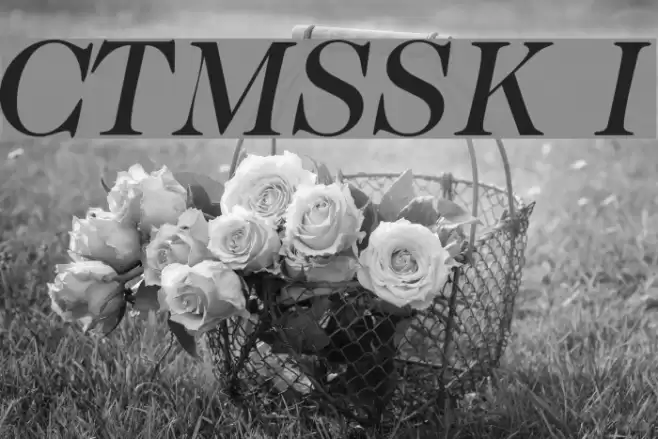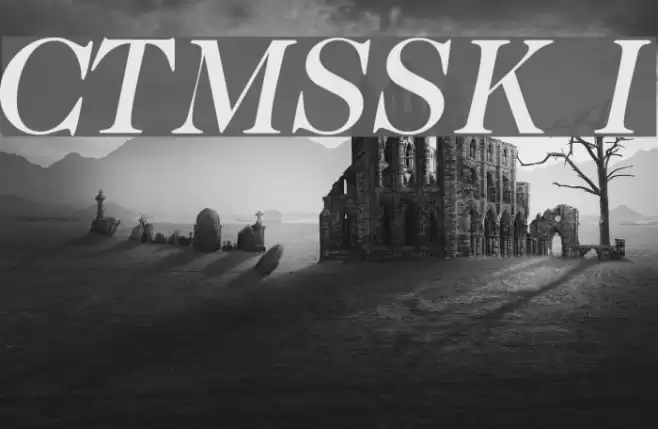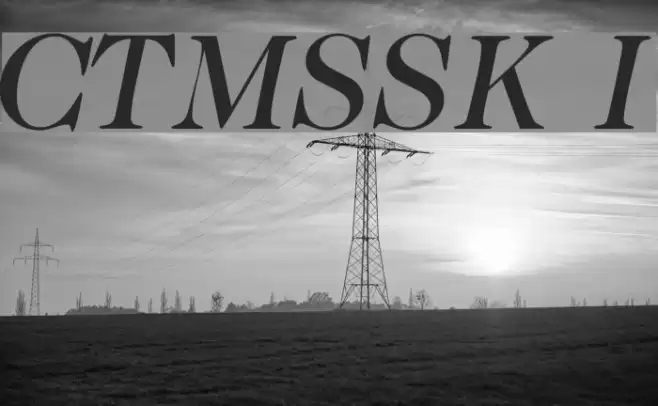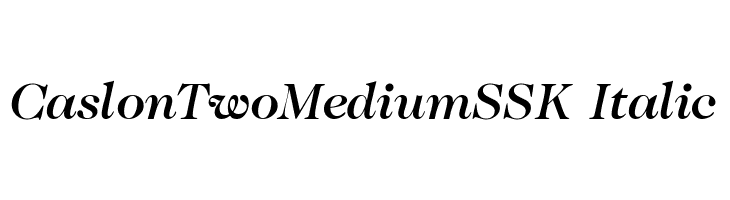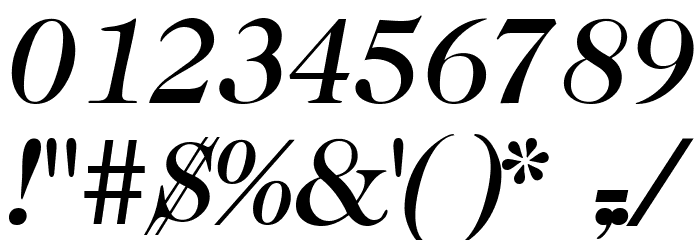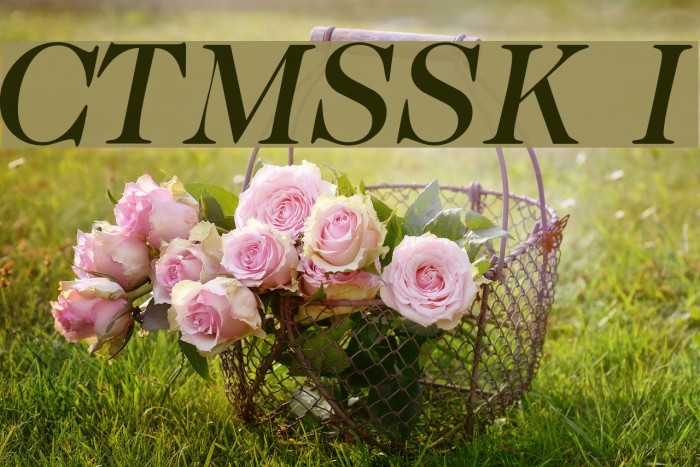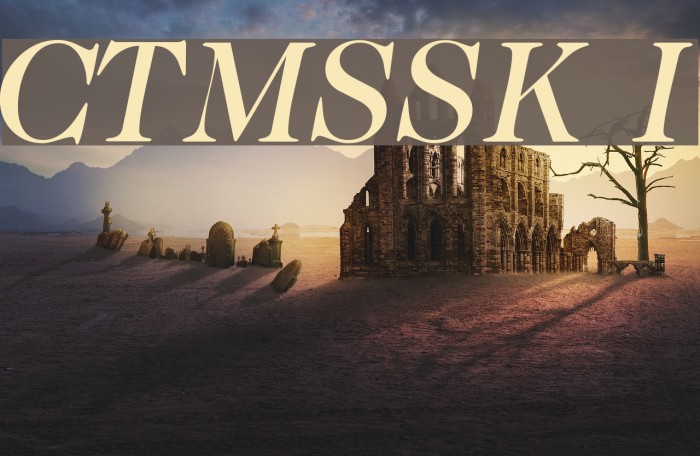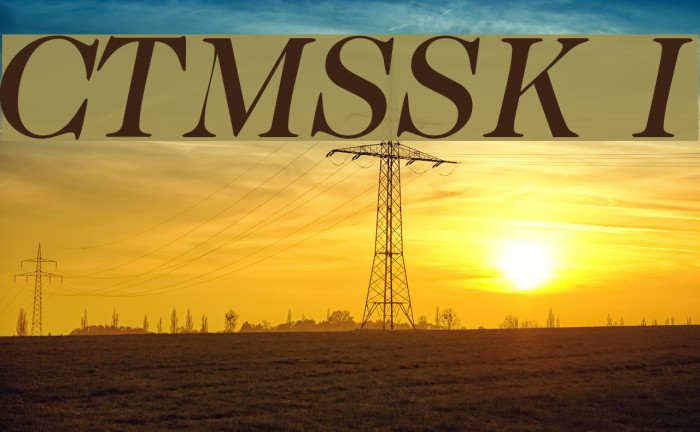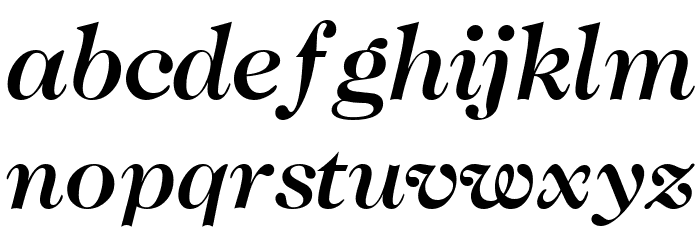
CaslonTwoMediumSSK Italic Font
CaslonTwoMediumSSK Italic Description
This font exhibits a classic serif style with a refined and elegant italic slant. The characters are well-proportioned, featuring delicate serifs that add a touch of sophistication. The uppercase letters are bold and commanding, while the lowercase letters maintain a graceful flow. The numerals are clear and distinct, ensuring readability. Special characters are thoughtfully designed, complementing the overall aesthetic. This font is ideal for projects requiring a traditional yet stylish appearance.
A classic serif font with elegant italic styling and refined serifs from Uncategorized fonts.
- Proposed Projects: Ideal for book covers, formal invitations, editorial design, and branding materials.
- Overall Style: Classic